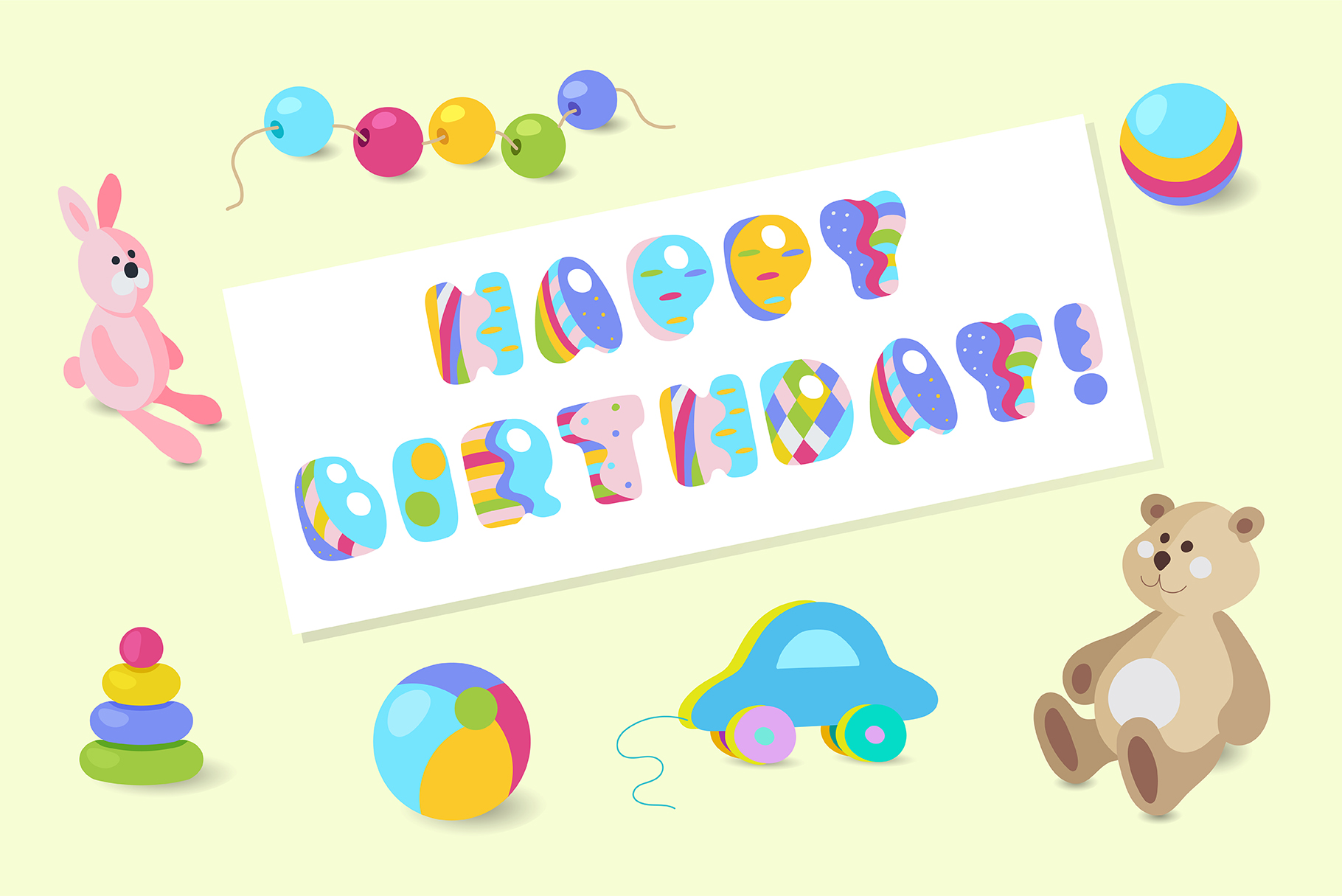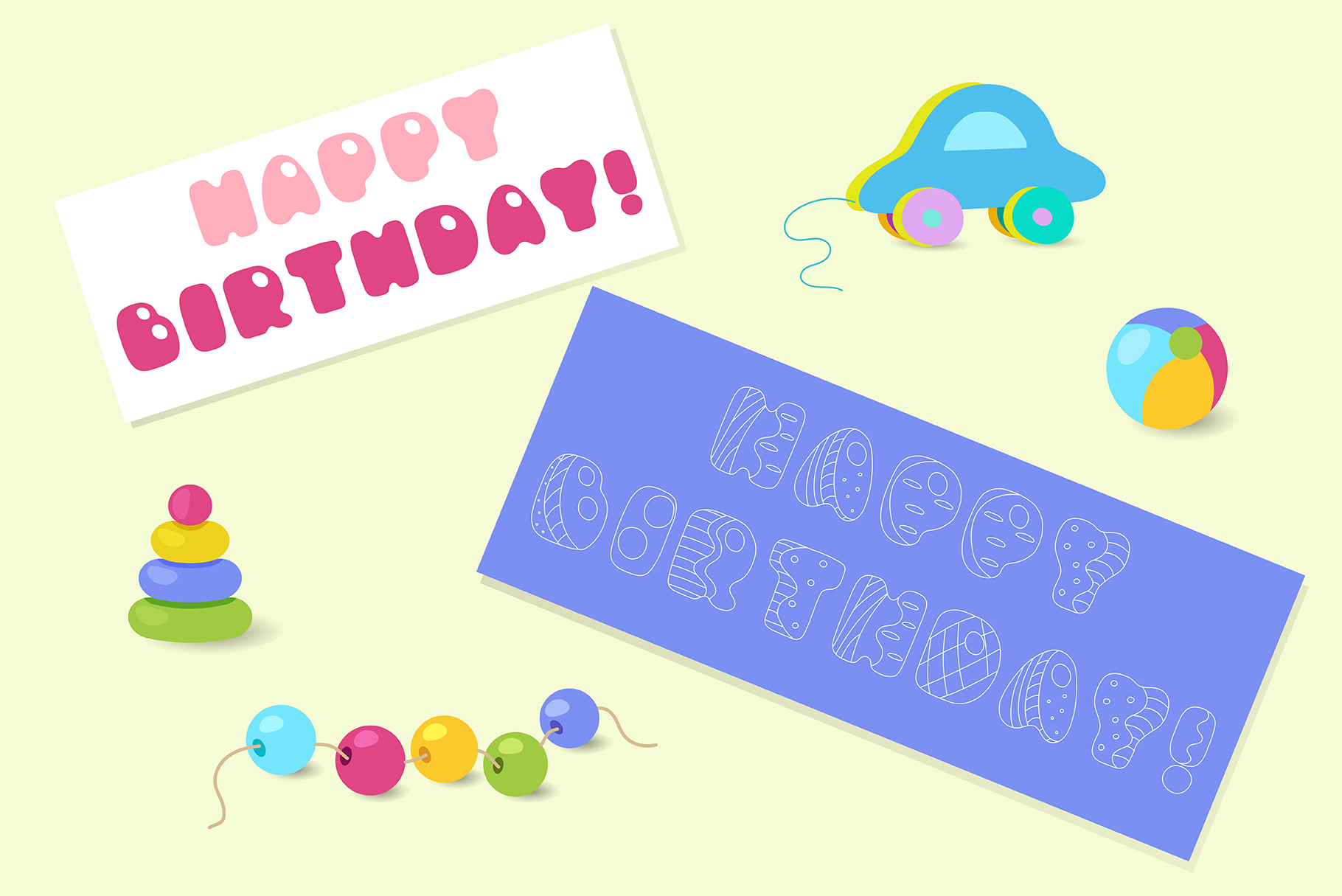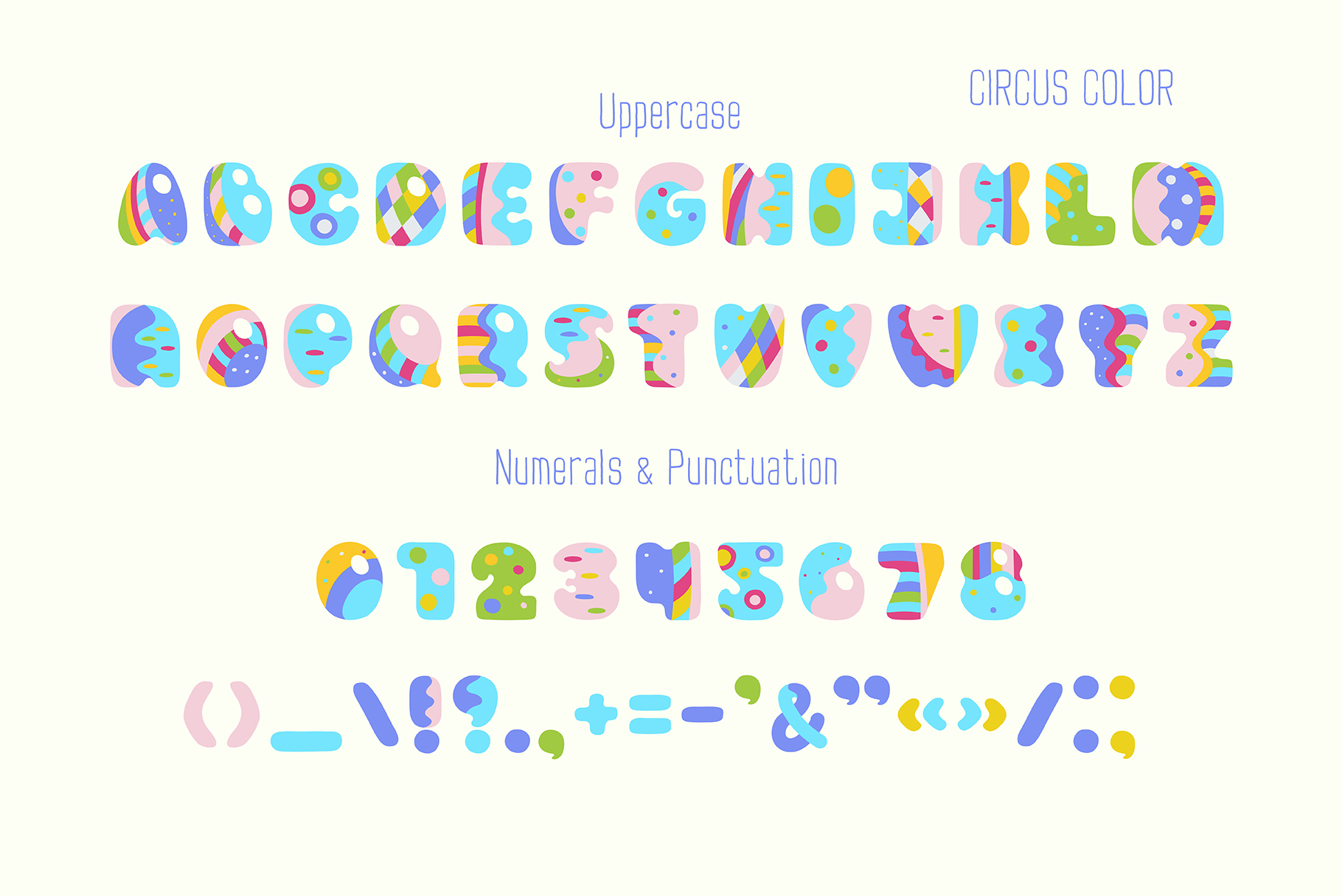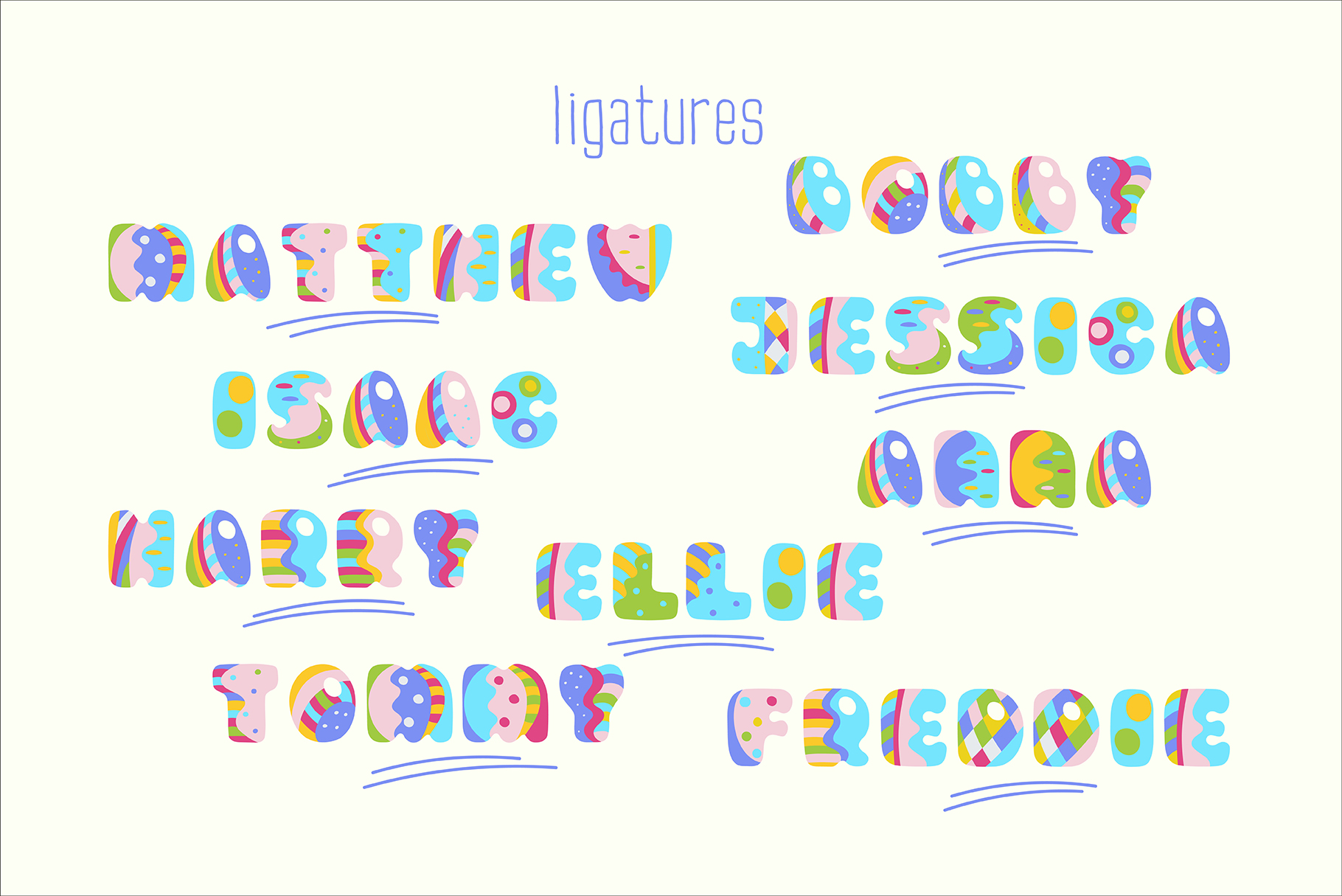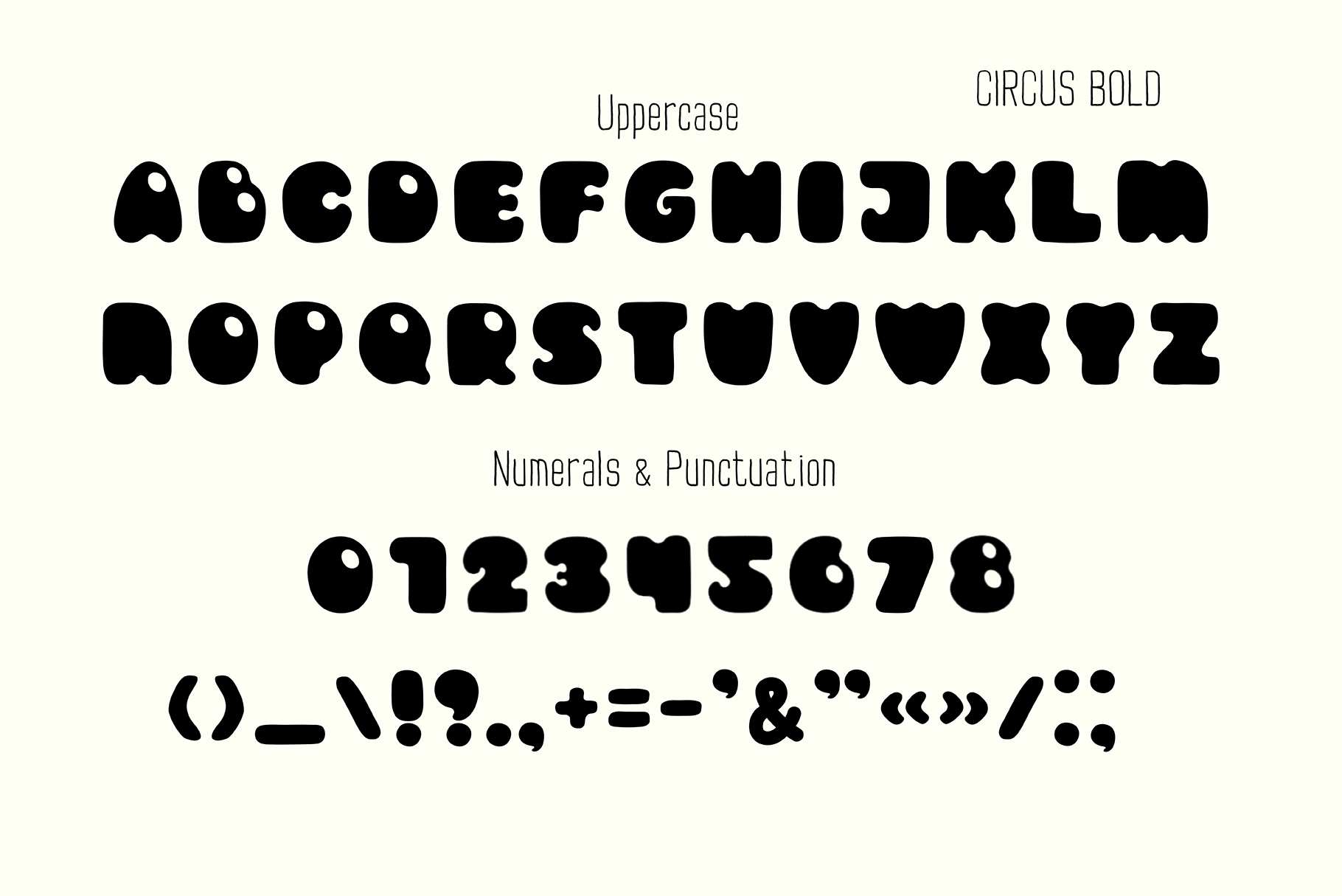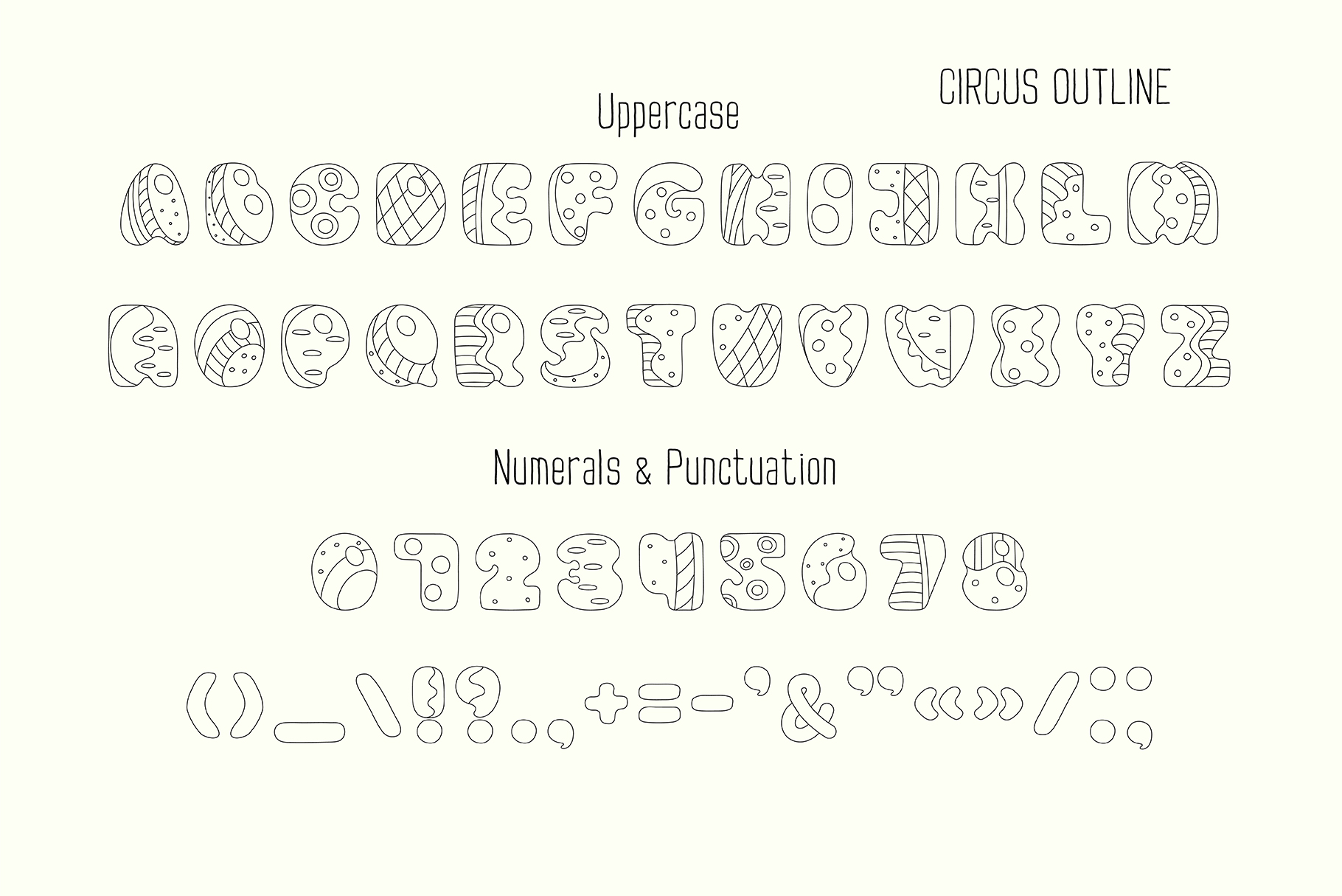
Circus Font: The Ultimate in Fun and Whimsical Typography
Are you looking for a font that can add a touch of excitement and playfulness to your designs? Look no further than the Circus font! This amazing font is the ultimate in fun and whimsical typography, perfect for designers and crafters who want to create unique and eye-catching projects.
What is Circus Font?
Circus font is a modern, digital font that is designed to bring a sense of fun and excitement to your designs. It comes in different style options, making it versatile and adaptable to a wide range of projects. Whether you’re creating a poster, a flyer, a social media graphic, or a craft project, Circus font is the perfect choice.
Key Features of Circus Font
- Multiple Style Options: Circus font comes in different style options, allowing you to experiment with different looks and feels to find the one that best suits your project.
- Wide Range of Design Possibilities: With Circus font, the possibilities are limitless! Use it for posters, flyers, social media graphics, craft projects, and more.
Benefits of Using Circus Font
So why choose Circus font for your next project? Here are just a few benefits of using this amazing font:
- Adds a Touch of Whimsy: Circus font adds a touch of whimsy and playfulness to your designs, making them stand out from the crowd.
Design Ideas Using Circus Font
So what can you create with Circus font? Here are just a few design ideas to get you started:
- Party Invitations: Use Circus font to create fun and playful party invitations that set the tone for a fun and exciting celebration.
- Social Media Graphics: Use Circus font to create eye-catching social media graphics that grab attention and drive engagement.
- Craft Projects: Use Circus font to create unique and personalized craft projects, such as scrapbook pages, cards, and gift tags.
- Posters and Flyers: Use Circus font to create bold and eye-catching posters and flyers that advertise events, products, or services.
Tips for Using Circus Font
Here are a few tips for using Circus font in your designs:
- Experiment with Different Styles: Circus font comes in different style options, so experiment with different styles to find the one that best suits your project.
- Use it with Other Fonts: Circus font can be paired with other fonts to create a unique and interesting look.
- Play with Color: Circus font is an OTF color font, so play with different colors to add depth and interest to your designs.
In conclusion, Circus font is the ultimate in fun and whimsical typography. With its multiple style options, OTF color font technology, and wide range of design possibilities, it’s the perfect choice for designers and crafters who want to create unique and eye-catching projects. So why wait? Download Circus font today and start creating!